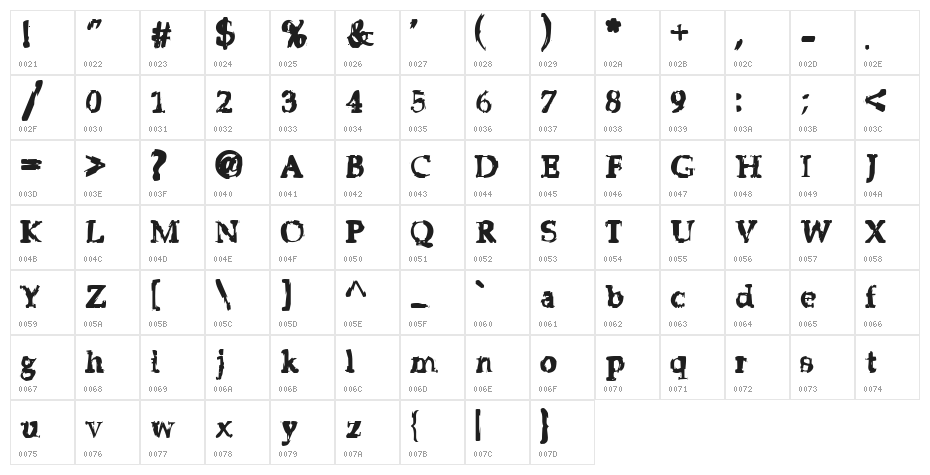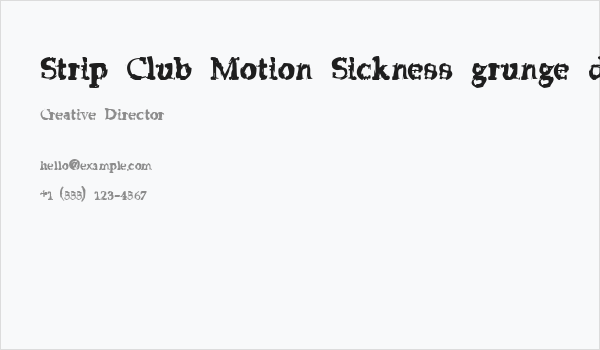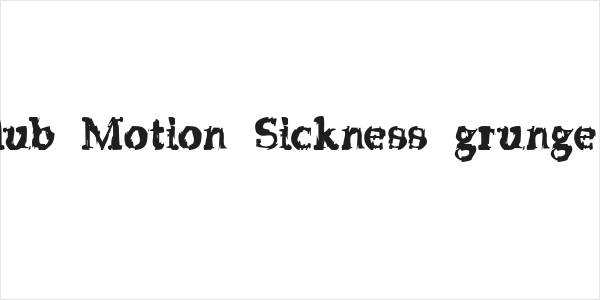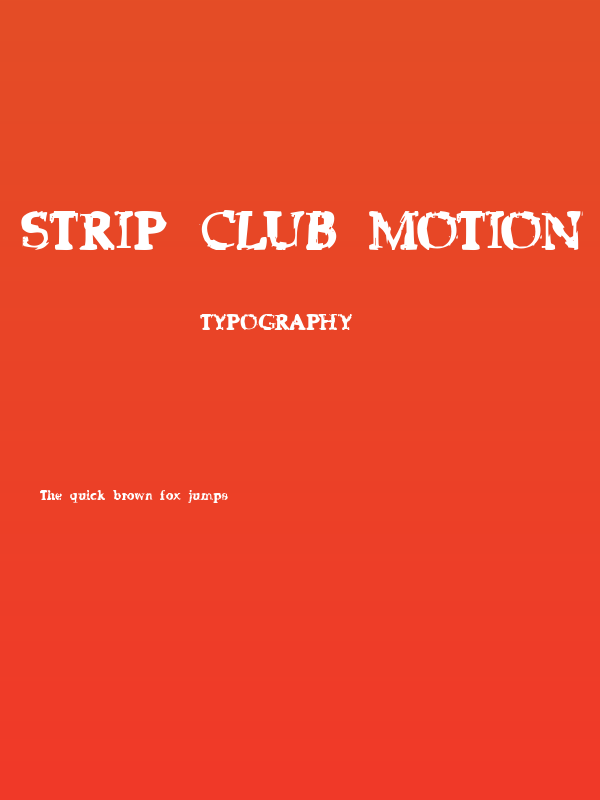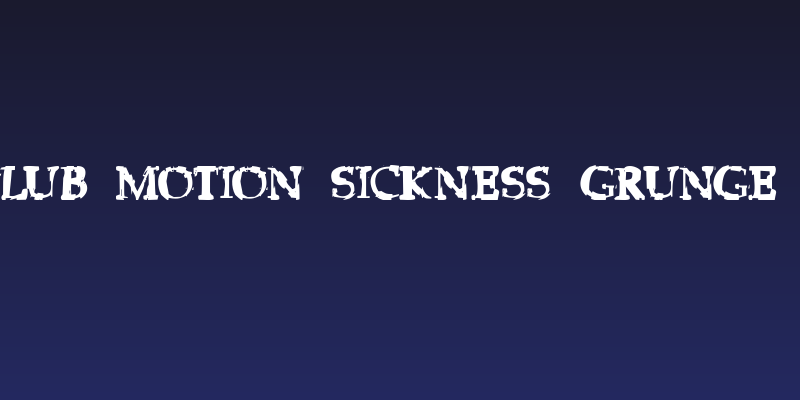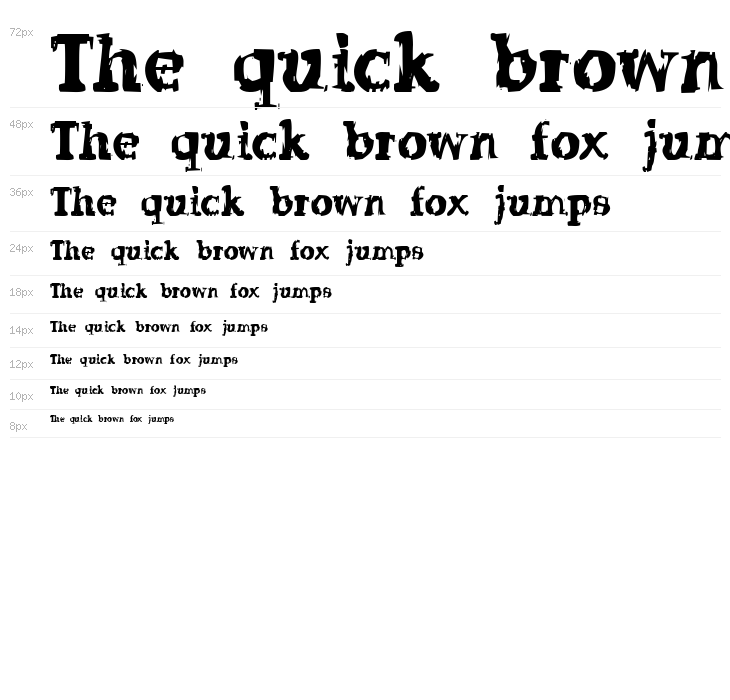
Strip Club Motion Sickness grunge deluxe Font
Strip Club Motion Sickness grunge deluxe Description
This font exhibits a bold and distressed appearance, characterized by rough, uneven edges and a grunge aesthetic. The uppercase and lowercase letters maintain a consistent style, with each character appearing as if it has been eroded or splattered with ink. The numbers and special characters follow the same theme, adding to the overall rugged and chaotic feel. This font is designed to stand out, making a strong visual impact with its unique and edgy style.
| Overall Style | Grunge, Edgy |
| Proposed Projects | Ideal for music album covers, edgy posters, streetwear branding, and any project requiring a bold, rebellious look. |